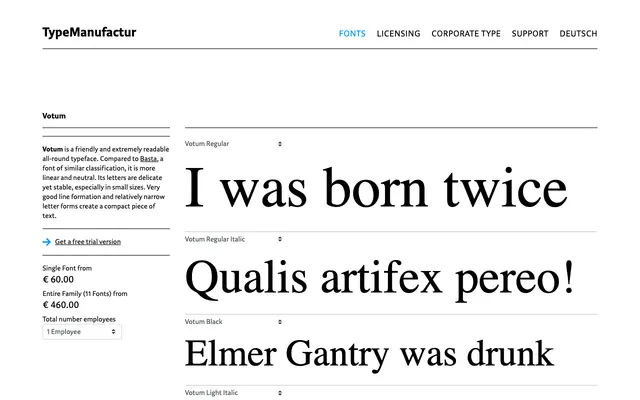
A text serif from Typemanufactur offered in four weights with italics and small caps across eleven styles.
Four weights from Light to Black each come with matching italics, and the three lighter weights gain small cap variants, giving eleven styles in total. The family is pitched at extended reading: book, editorial and long-form contexts where small caps and a measured weight range matter. No condensed or display cuts are offered, keeping the family focused on text work.
The presence of small caps, italic variants, and a range from Light to Black across text-oriented weights suggests a classical text serif tradition consistent with transitional serif conventions, designed for sustained reading.